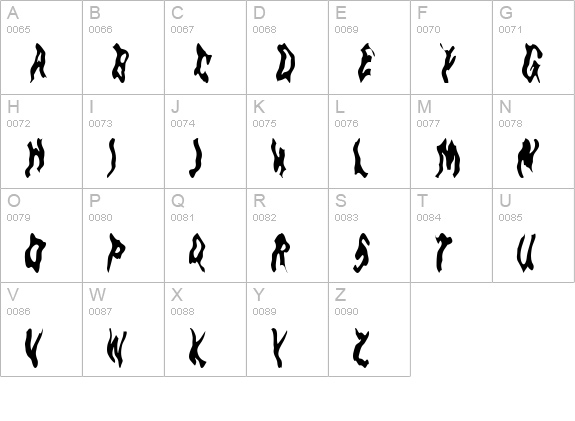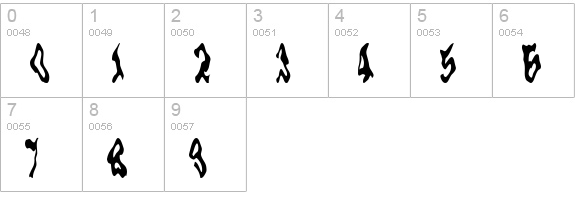
GoblinMoon Font Details
GoblinMoon font is a whimsical and playful typeface that is perfect for adding a touch of magic to your designs. With its quirky characters and unique style, GoblinMoon is sure to stand out and capture attention. This font is ideal for a variety of projects, from children's books to fantasy-themed designs. Best of all, GoblinMoon font is completely free to download at FontsMarket.com. Simply visit the website and start using this enchanting font in your projects today. Don't miss out on the opportunity to add a touch of charm and creativity to your designs with GoblinMoon font.